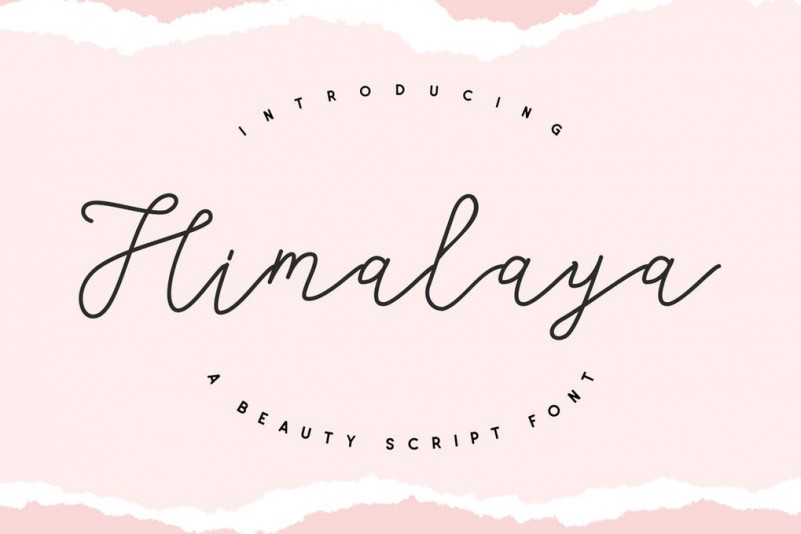
Himalaya Font
Are you looking for a simple and elegant handwriting font? We can help! Try to download our Himalaya beauty script font. The font is suitable to use for casual purpose. Try to use it on Wedding invitation, photography, branding and signature to see the best of it ๐Ÿ™‚